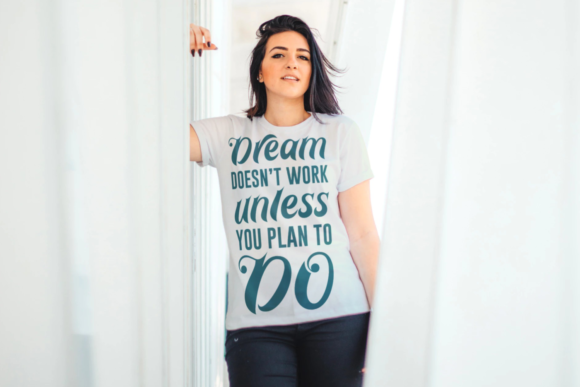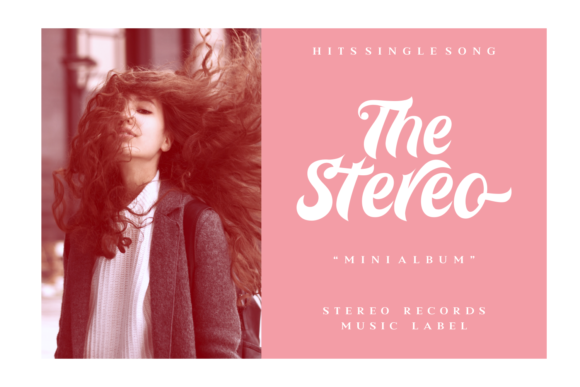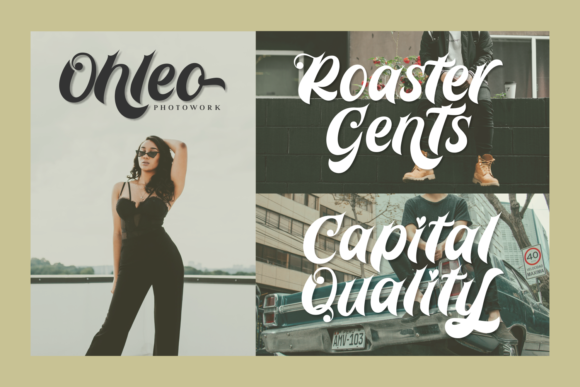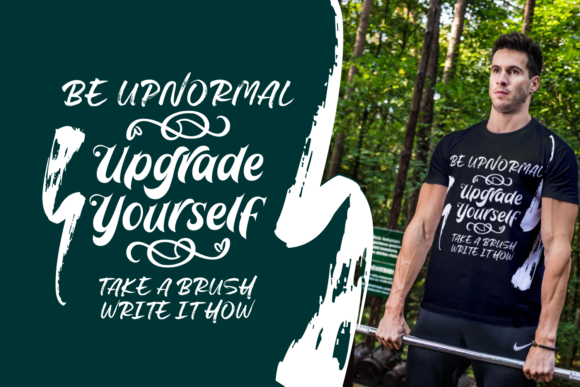
Introduction to Prettyla Font
Have you ever been working on a creative project, pouring your heart and soul into every detail, only to feel like something is missing? Maybe it’s the perfect font to elevate your design and give it that extra oomph. For designers, finding the right font can be a game-changer. It’s what sets your design apart from the rest and makes it truly memorable.
Enter the Prettyla Font, a unique script font that adds a touch of luxury to any design. With its bold yet elegant style, this font is sure to make a statement. Whether you’re working on a high-end branding project or creating a free downloadable resource, the Prettyla Font is a valuable addition to your design arsenal.
But what really sets the Prettyla Font apart is its versatility. It’s perfect for creating a beautiful logo, adding a touch of sophistication to a website, or even creating a free downloadable template with a transparent background.
Key Features of Prettyla Font
- Comes in 5 different font styles, each with a unique aesthetic
- Designed with high-resolution graphics in mind, suitable for printing and digital use
- Perfect for designers, artists, and creatives looking for a unique and high-quality design element
Honest Review: Prettyla Font
I recently stumbled upon the Prettyla Font, and I must say, it’s been a game-changer for my creative projects. This design resource has been a breath of fresh air, offering a high quality and versatile font that’s perfect for any project.
What works well with the Prettyla Font is its clean and elegant design. The transparent background allows for seamless integration with any background image or color, making it a great choice for designers looking to add a touch of sophistication to their work. The font also comes in various weights, making it easy to customize and match the tone of your project.
Here are some of the key features that make the Prettyla Font stand out:
- High quality and elegant design
- Various weights for customization
⚠️ One limitation of the Prettyla Font is that it may not be suitable for projects that require bold or dramatic typography. Additionally, the font may not be as versatile for projects that require a lot of customizations.
Overall, I’m thoroughly impressed with the Prettyla Font. Its high quality, elegant design, and transparent background make it a great addition to any designer’s toolkit. And the best part? It’s a free download, making it accessible to designers of all levels.
The Prettyla Font is versatile and can be used in a variety of projects, including: social media graphics, posters, flyers, and more. Its transparent background makes it perfect for creating custom designs and graphics.